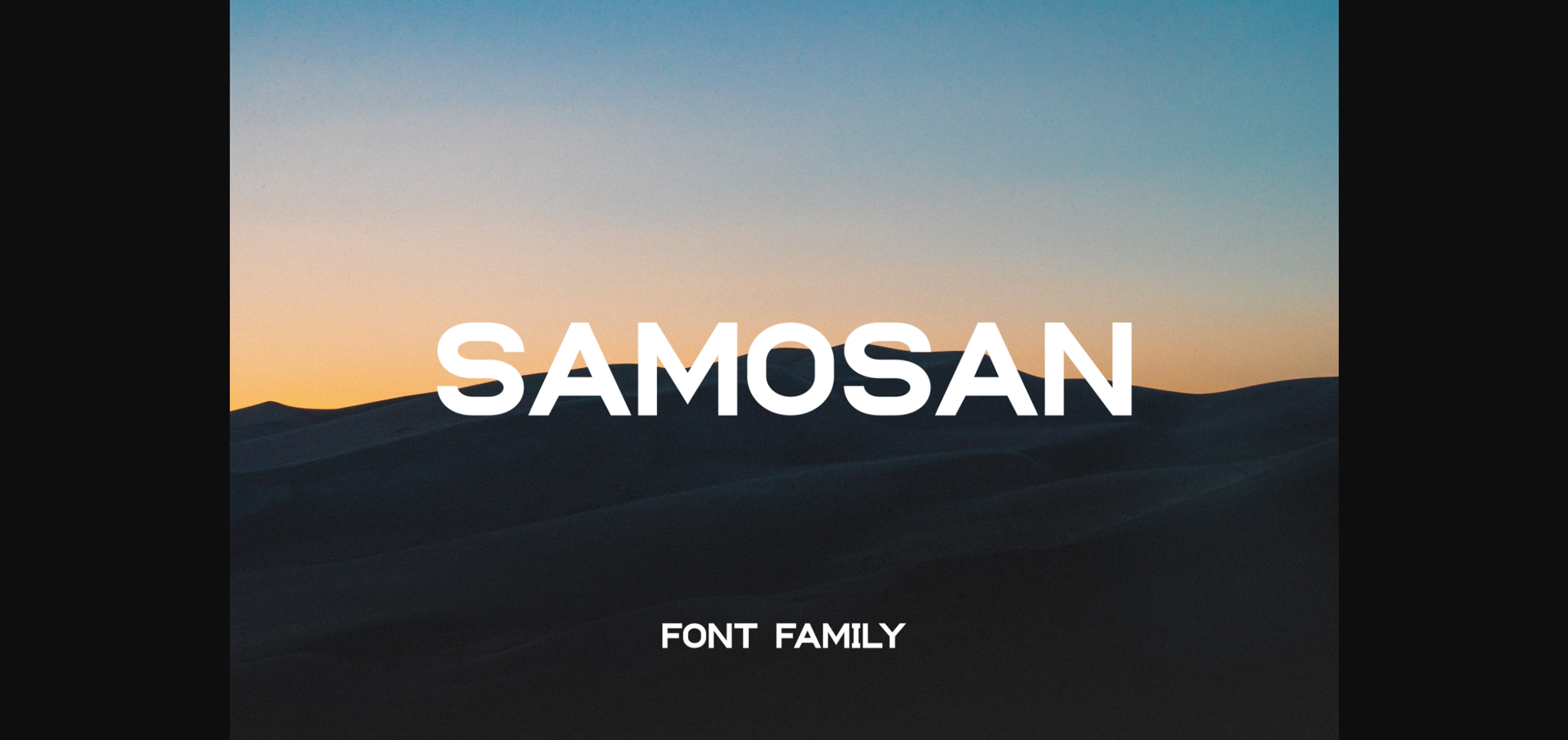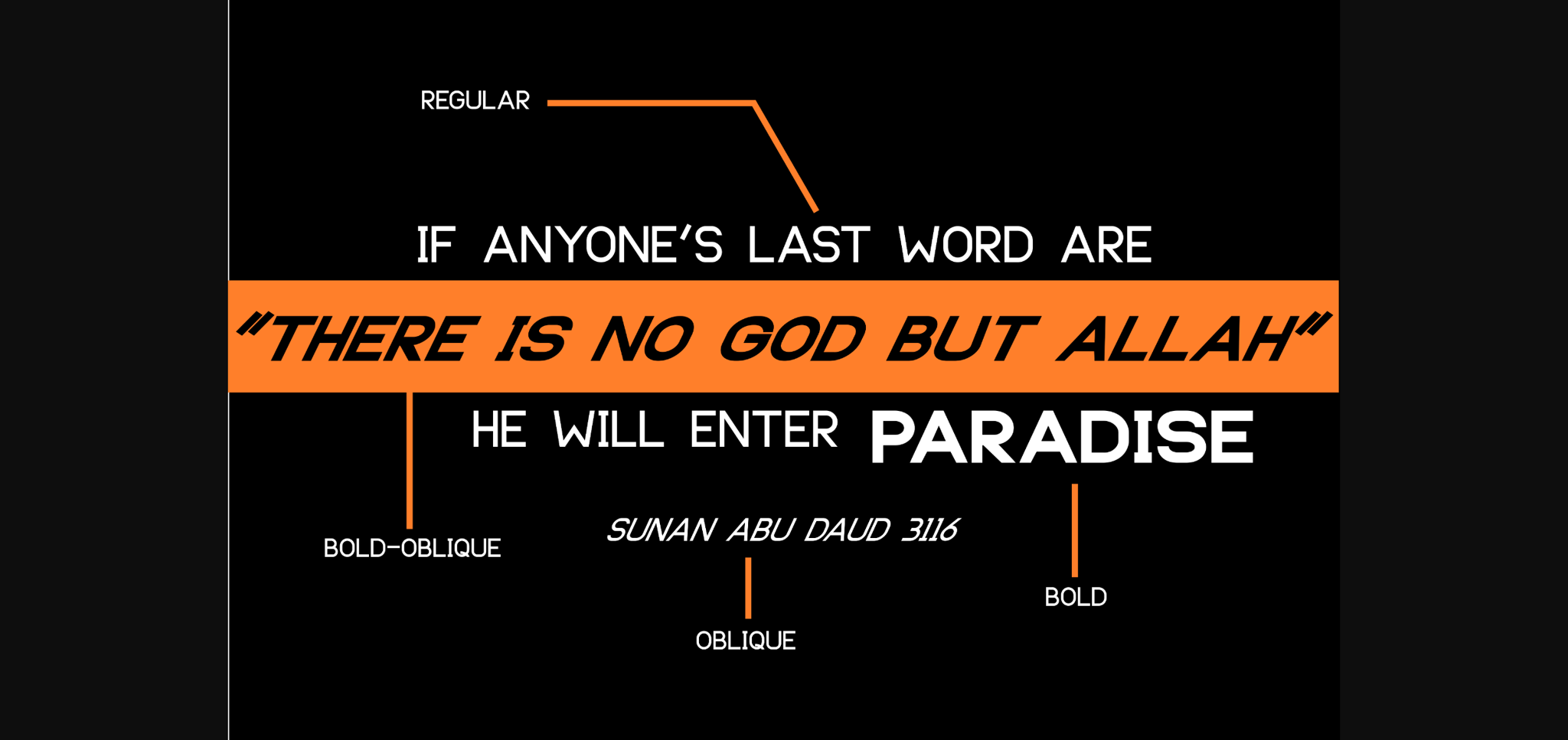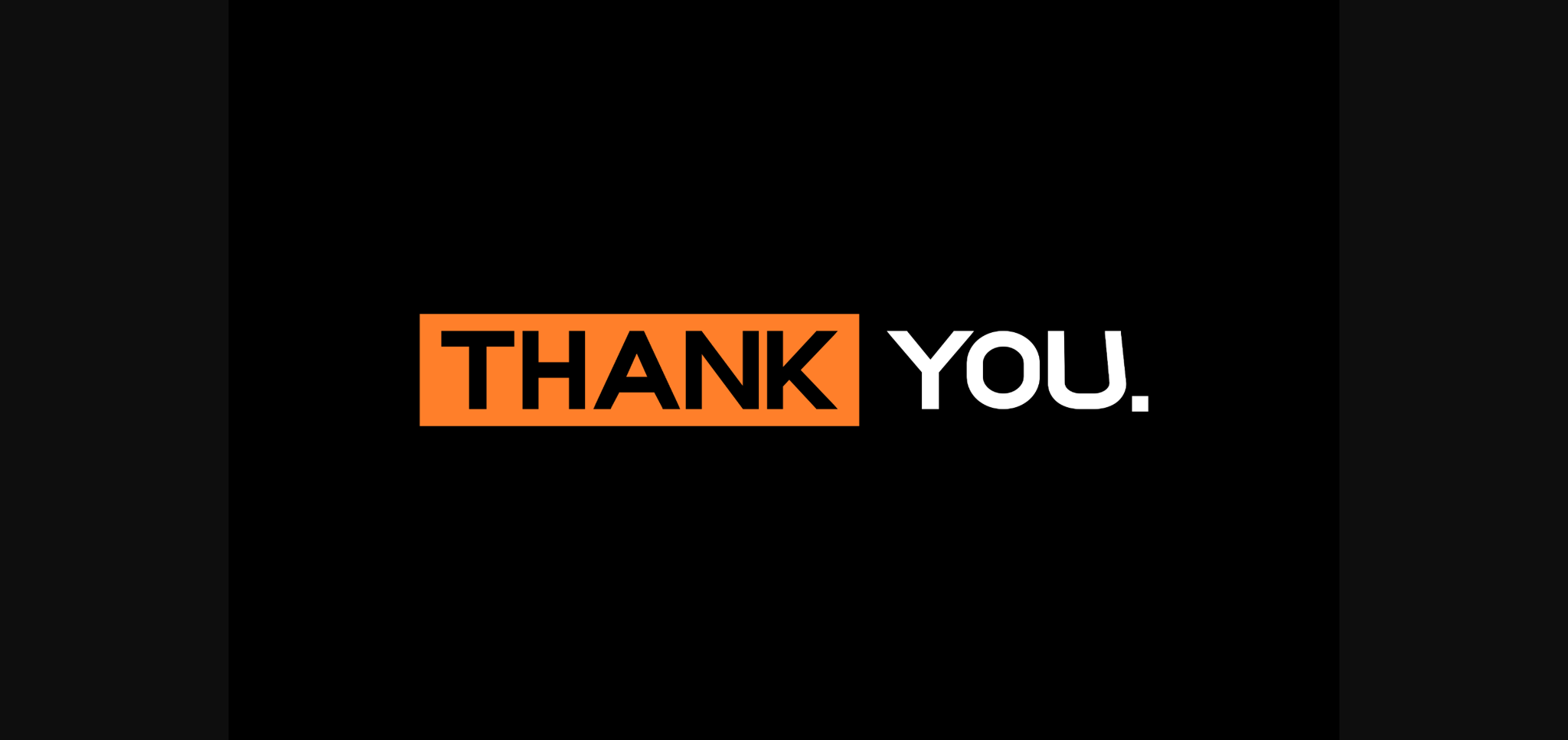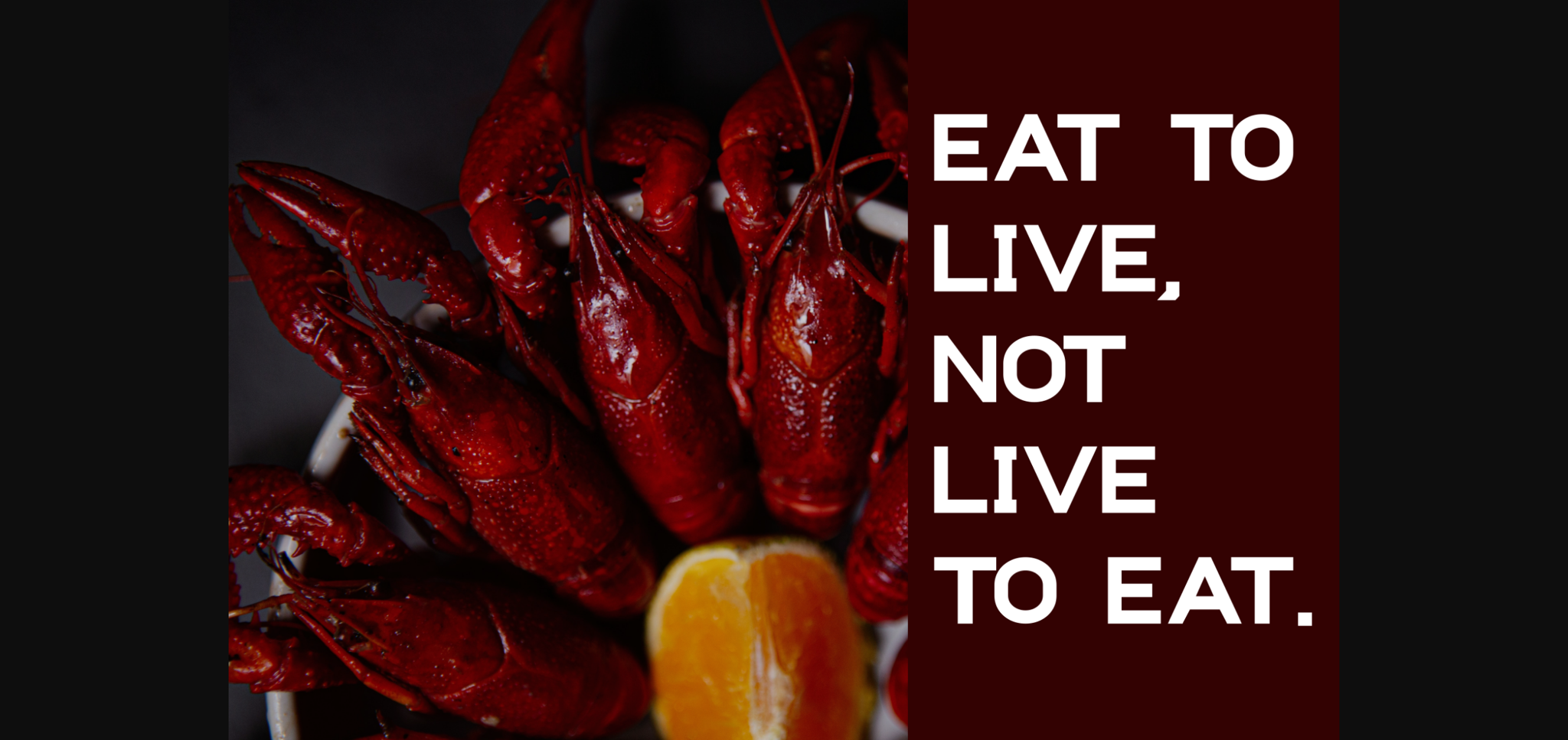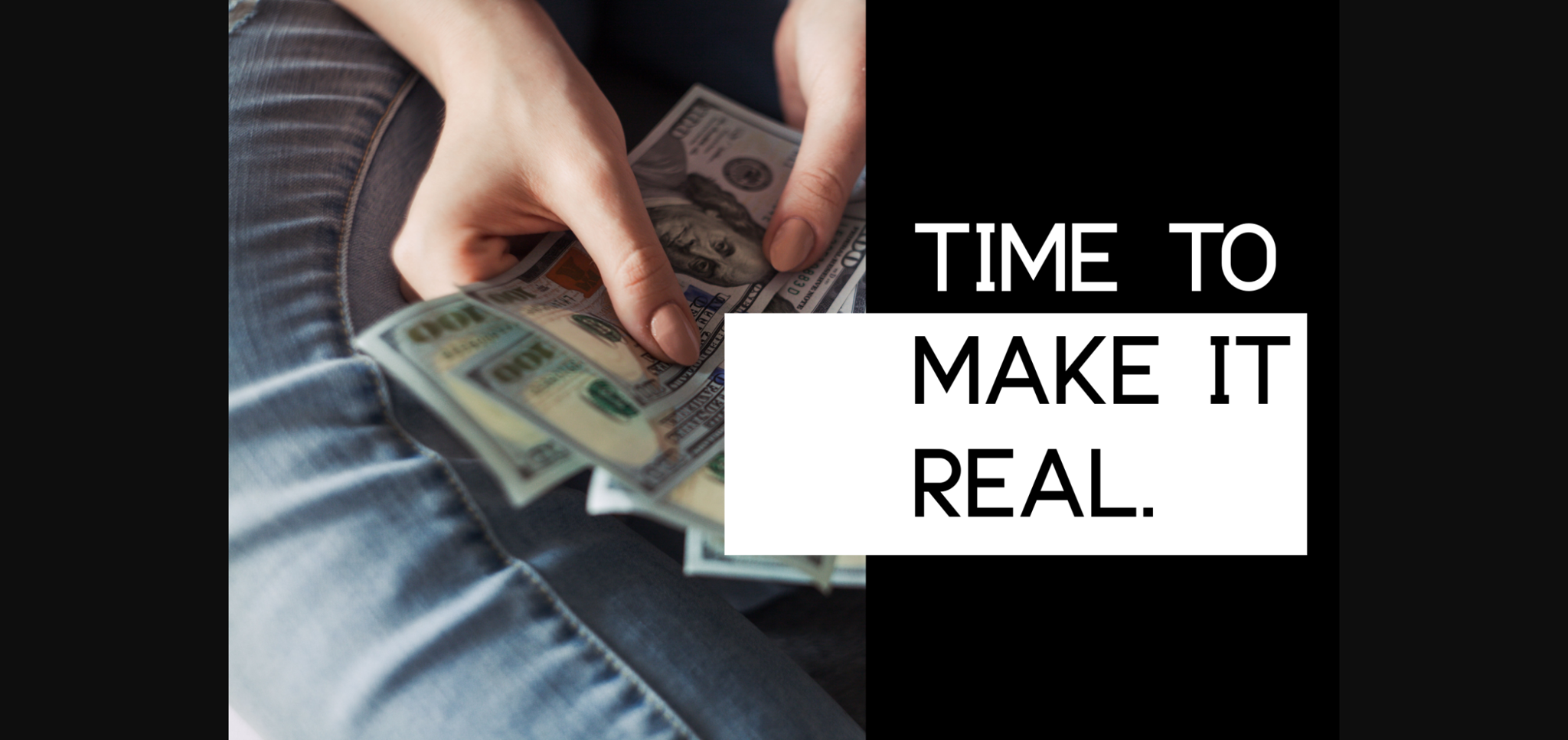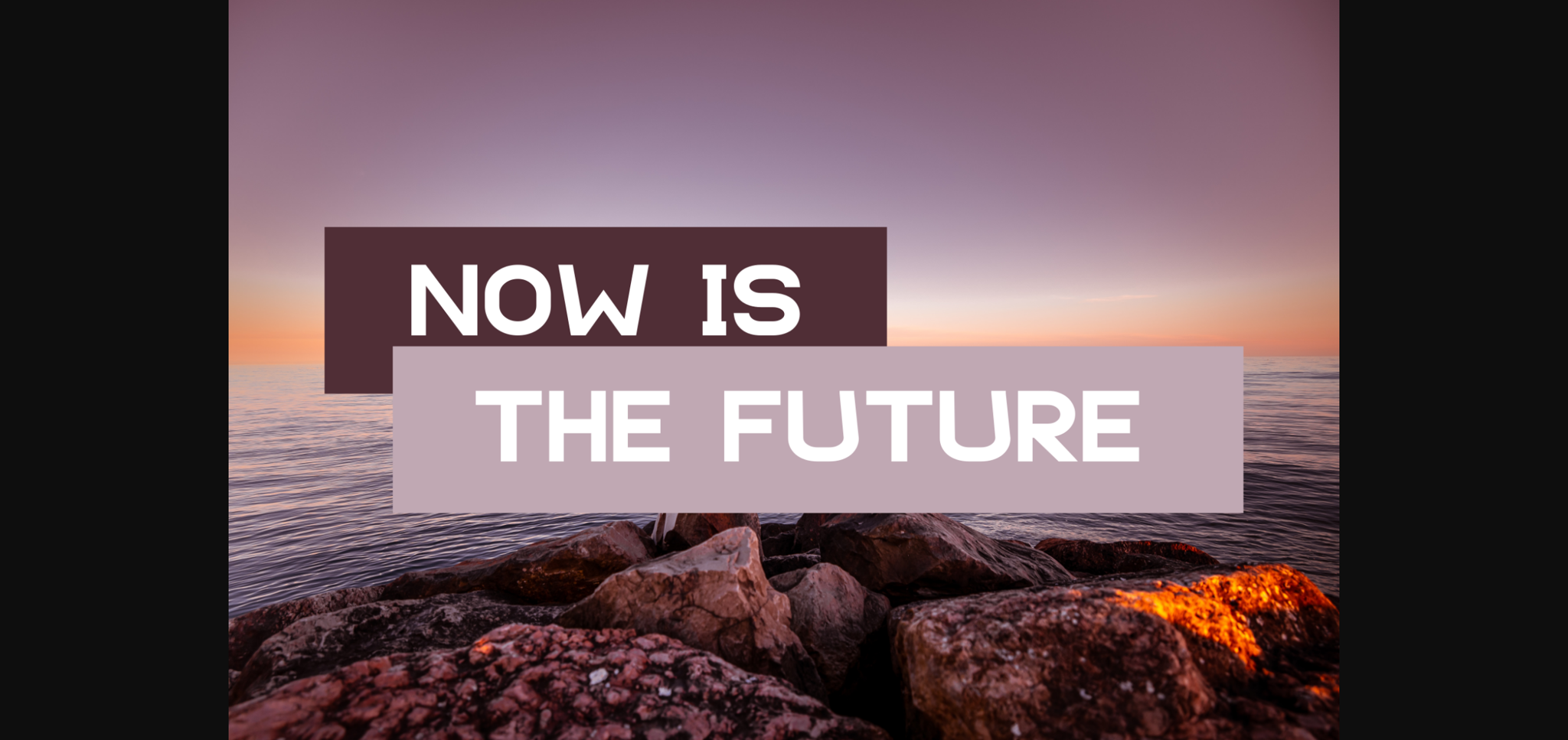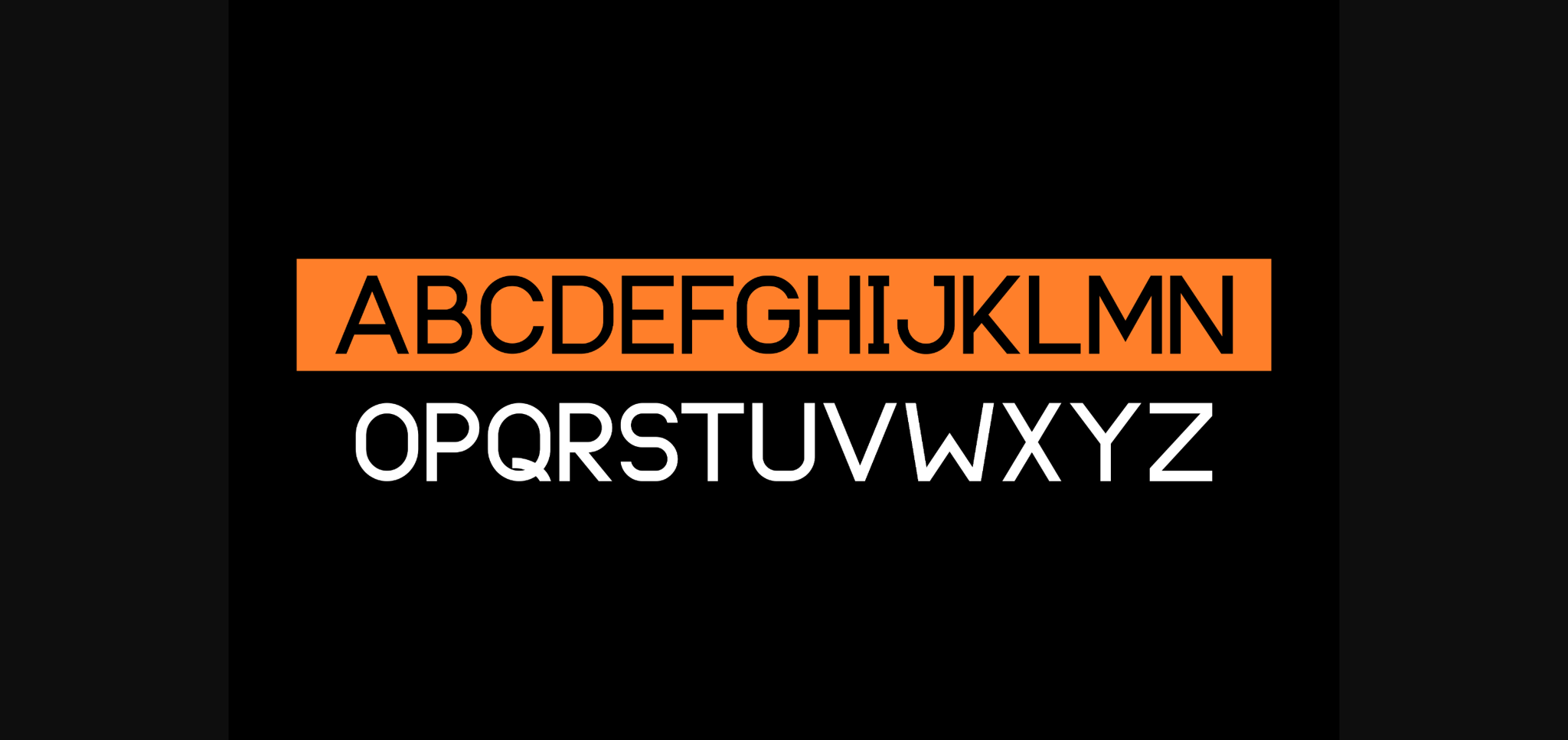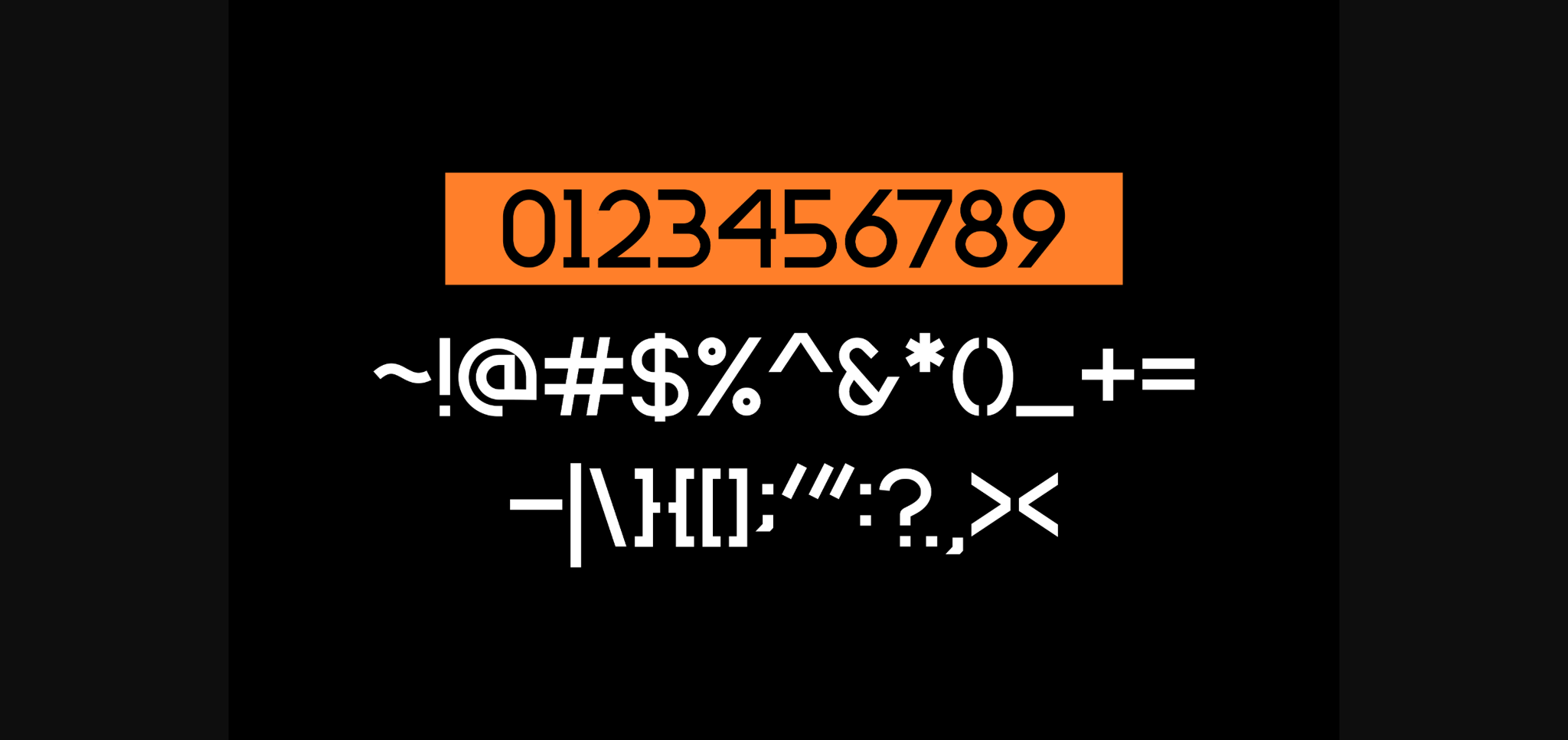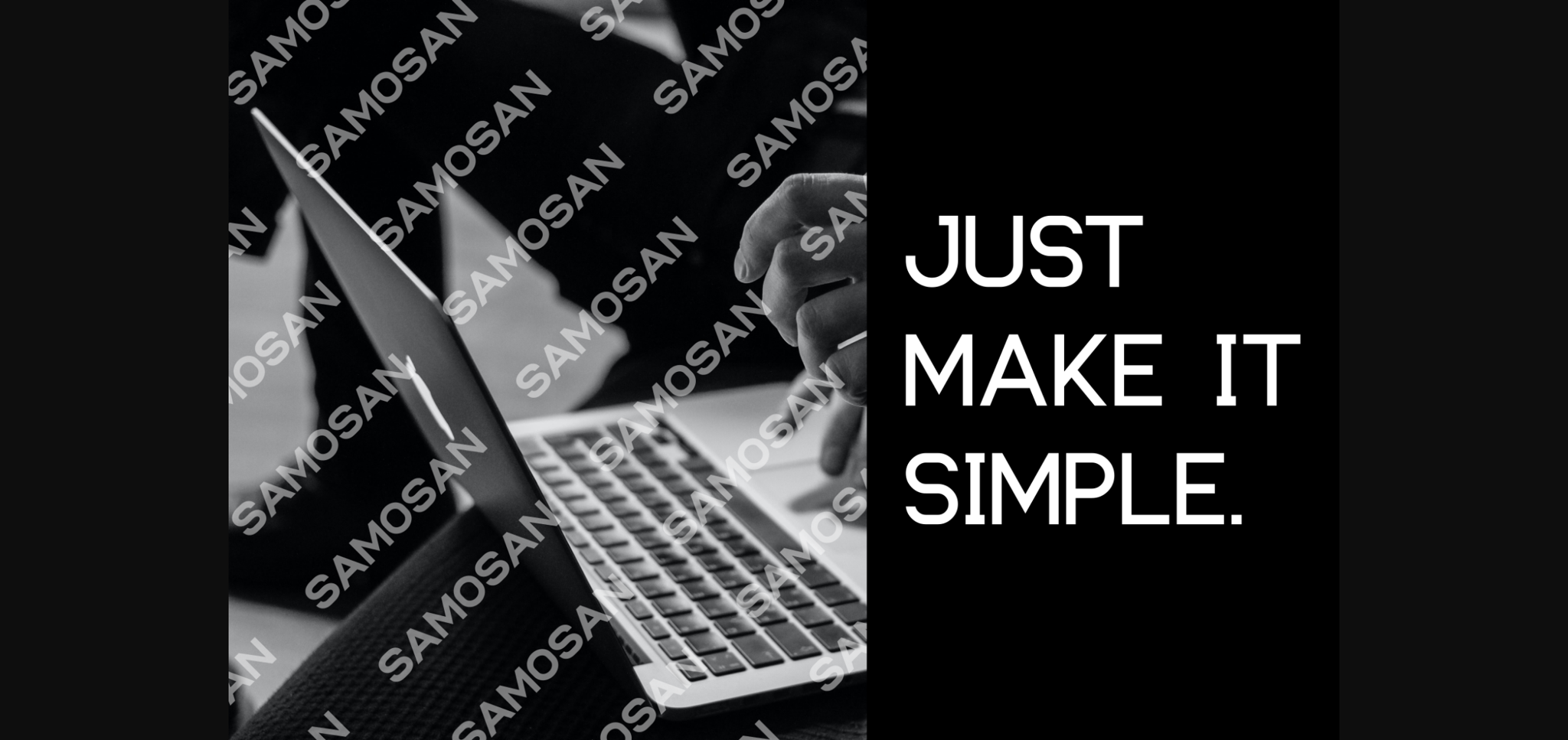
HomeSans Serif FontsSamosan Font Sans Serif Fonts Samosan Font FacebookTwitterPinterestWhatsApp 1 of 11 ... Samosan Font Poster 2... Samosan Font Poster 3... Samosan Font Poster 4... Samosan Font Poster 5... Samosan Font Poster 6... Samosan Font Poster 7... Samosan Font Poster 8... Samosan Font Poster 9... Samosan Font Poster 10... Samosan Font Poster 11... About Samosan Font Samosan is a bold and neat lettered sans serif font. It can easily be matched to an incredibly large set of projects, so add it to your creative ideas and notice how it makes them stand out! DOWNLOAD NOW People also explored Joyful Christmas Font Santiago Pro Font Goshawk Font Oh Jamilah Font Mysteries Font Night Lounge Font Alva Titan Font Easter Bunny Hoppy Font Dinoasa Font 149 0 TagsSamosanSamosan Font Previous articleBrotherton FontNext articleBalde Font LEAVE A REPLY Cancel reply Comment: Please enter your comment! Name:* Please enter your name here Email:* You have entered an incorrect email address! Please enter your email address here Website: Save my name, email, and website in this browser for the next time I comment. Personal Use Free Angola Beach Personal Use Free Read more about this font Cosmos Personal Use Free Read more about this font Cinderella Personal Use Free Read more about this font Rhetorical Personal Use Free Read more about this font BLOG Free Fonts Risk: Why Free Fonts Can Be Dangerous for Designers Free Fonts Risk: Why Free Fonts Can Be Dangerous for Designers Using free fonts is a common practice in web and graphic design. However, the... Elegant Wedding Invitation Fonts – Handwritten & Script Fonts Top 7 Google Fonts Alternatives for Faster and Privacy-Friendly Web Design (2025) To increase your work productivity, choose the most readable fonts.